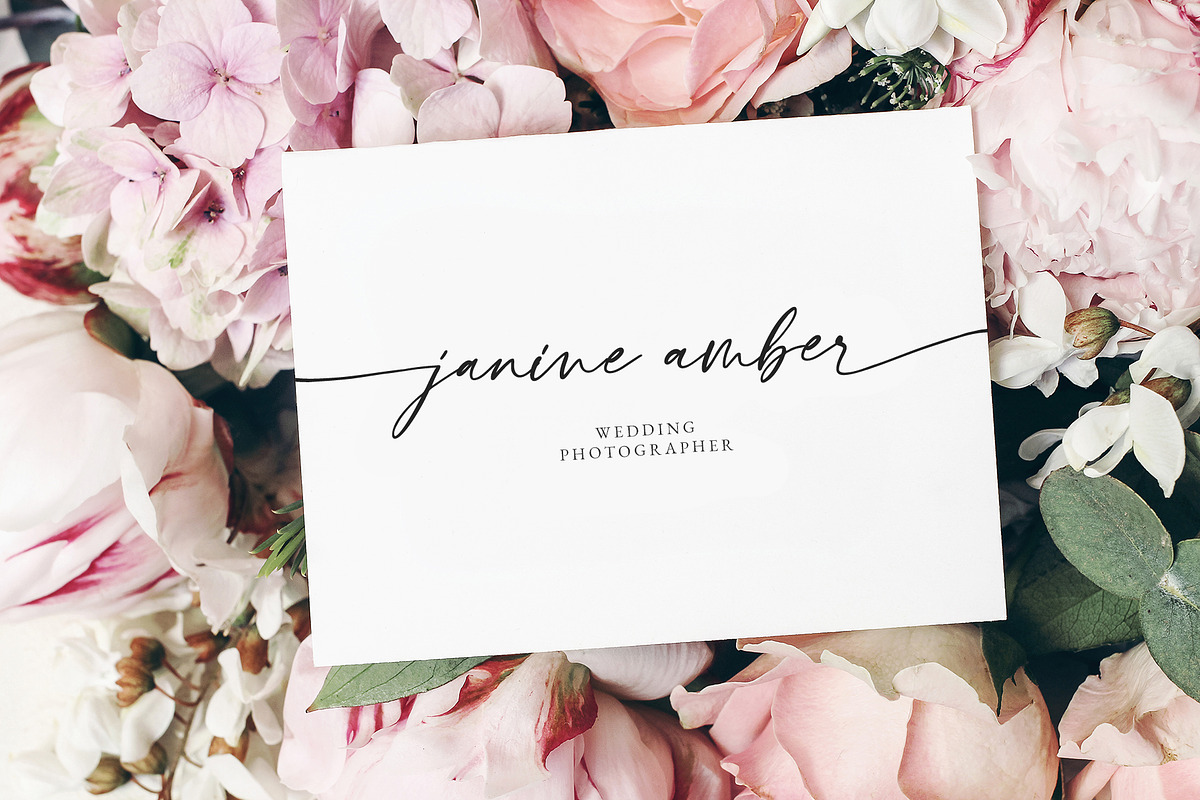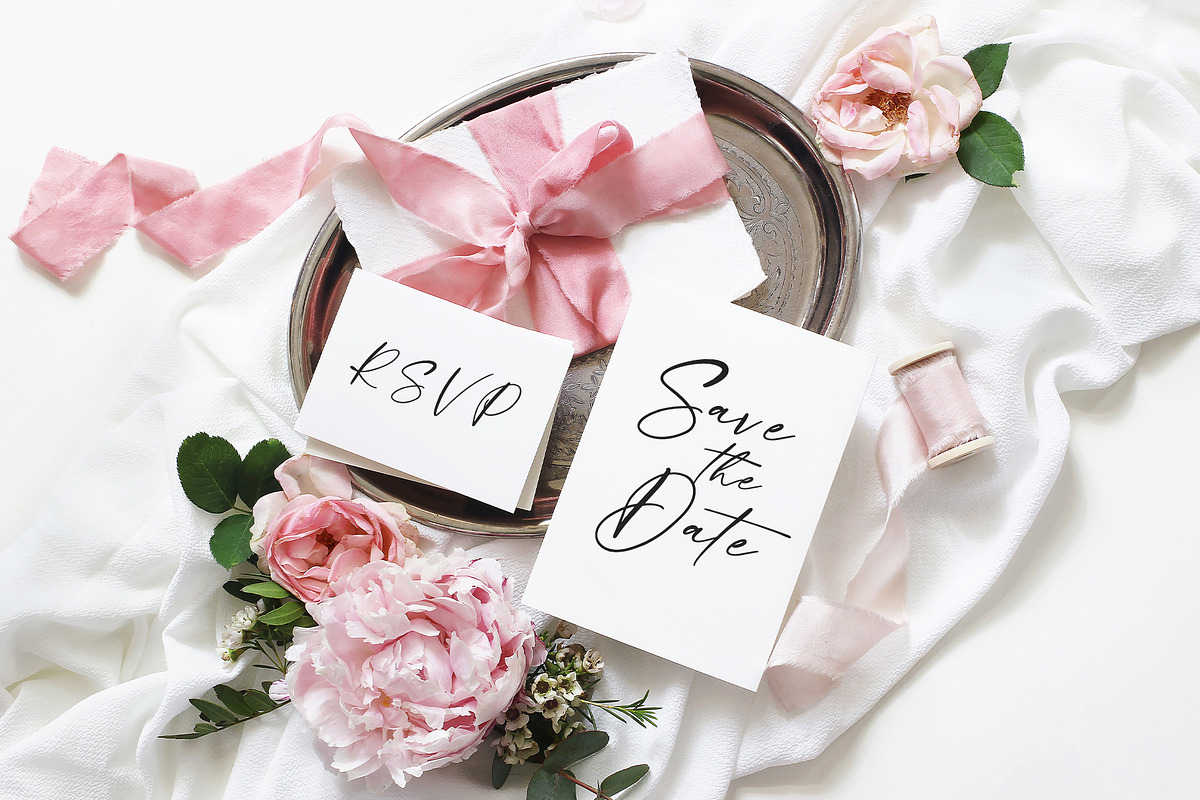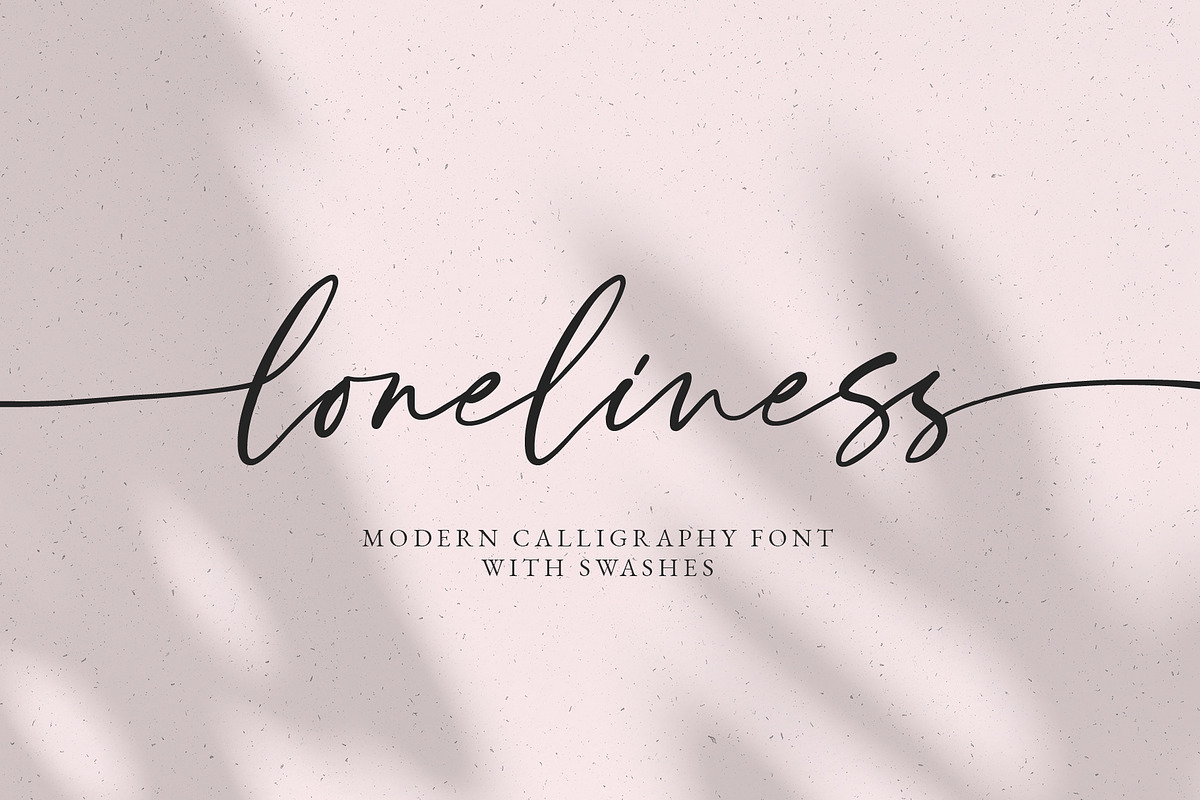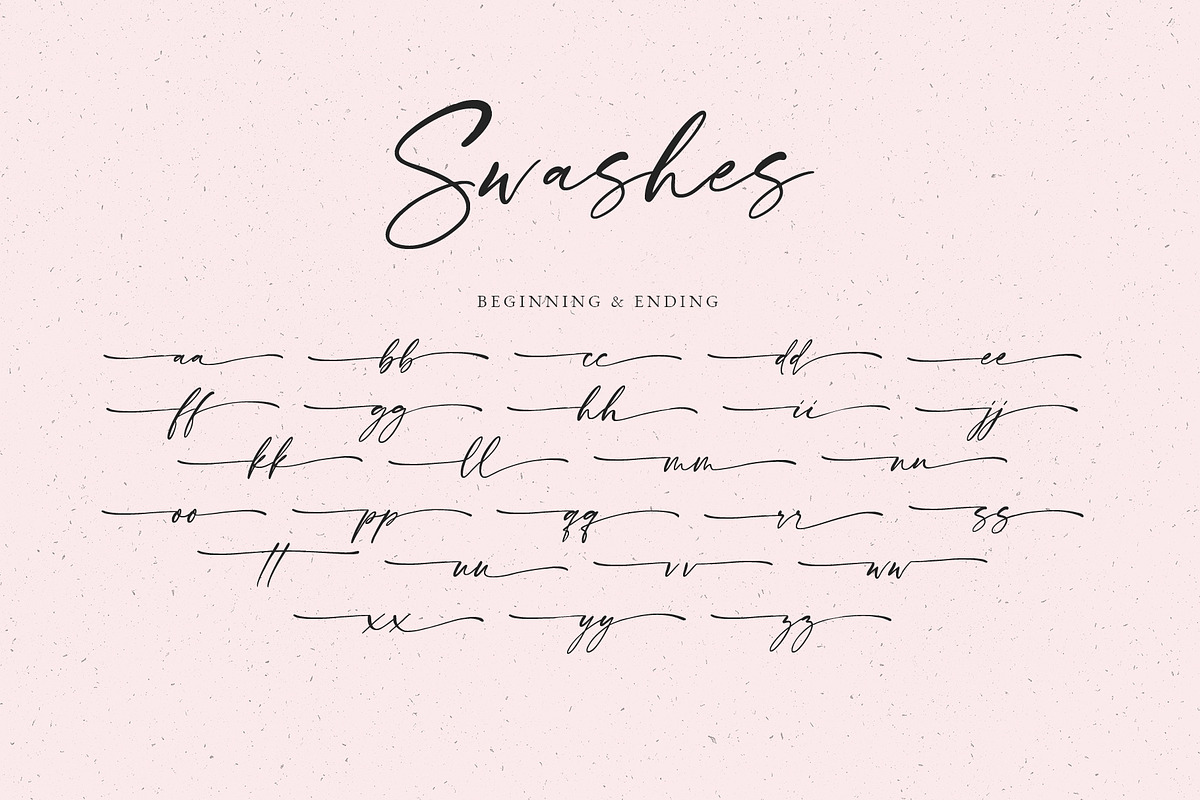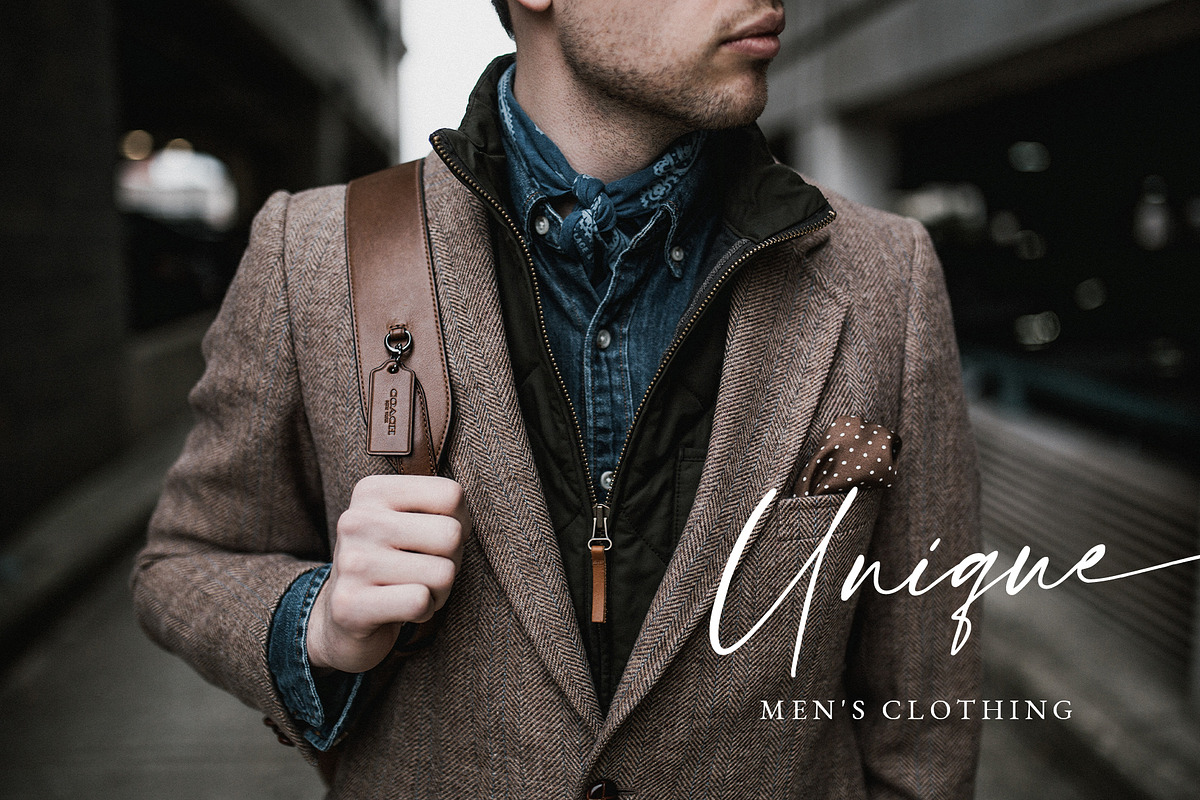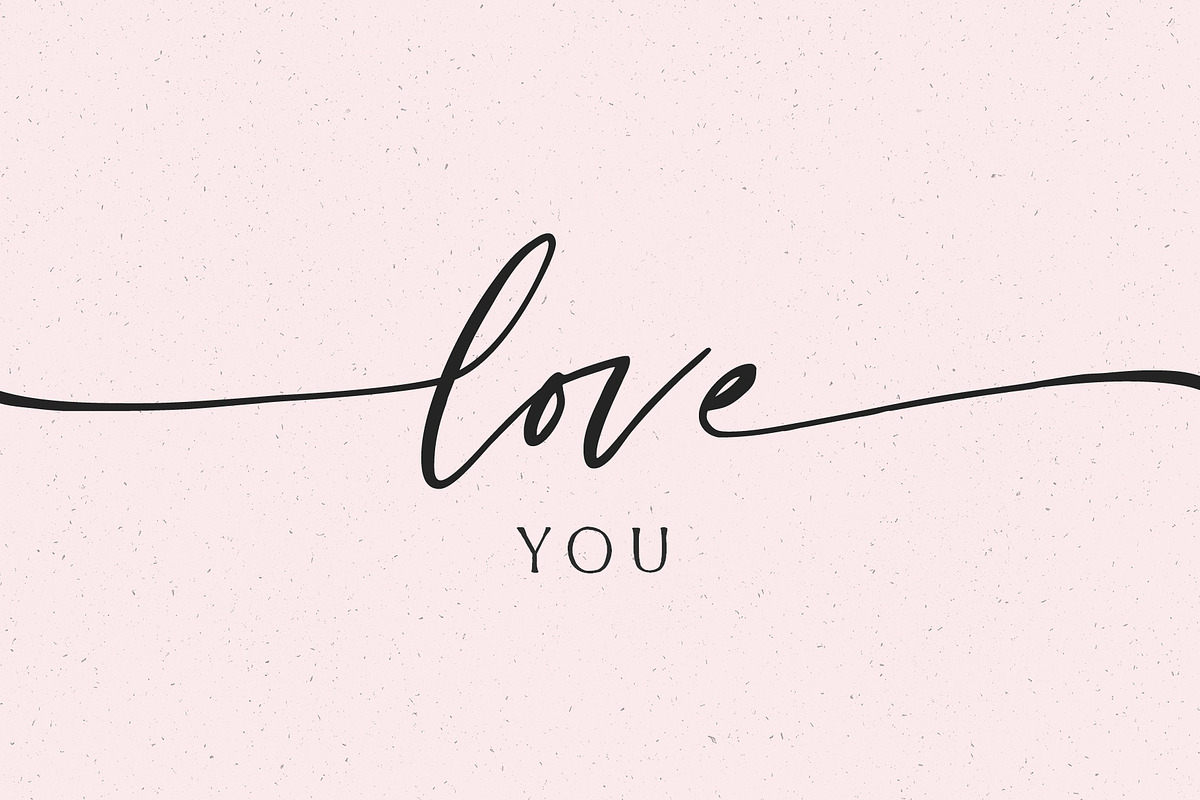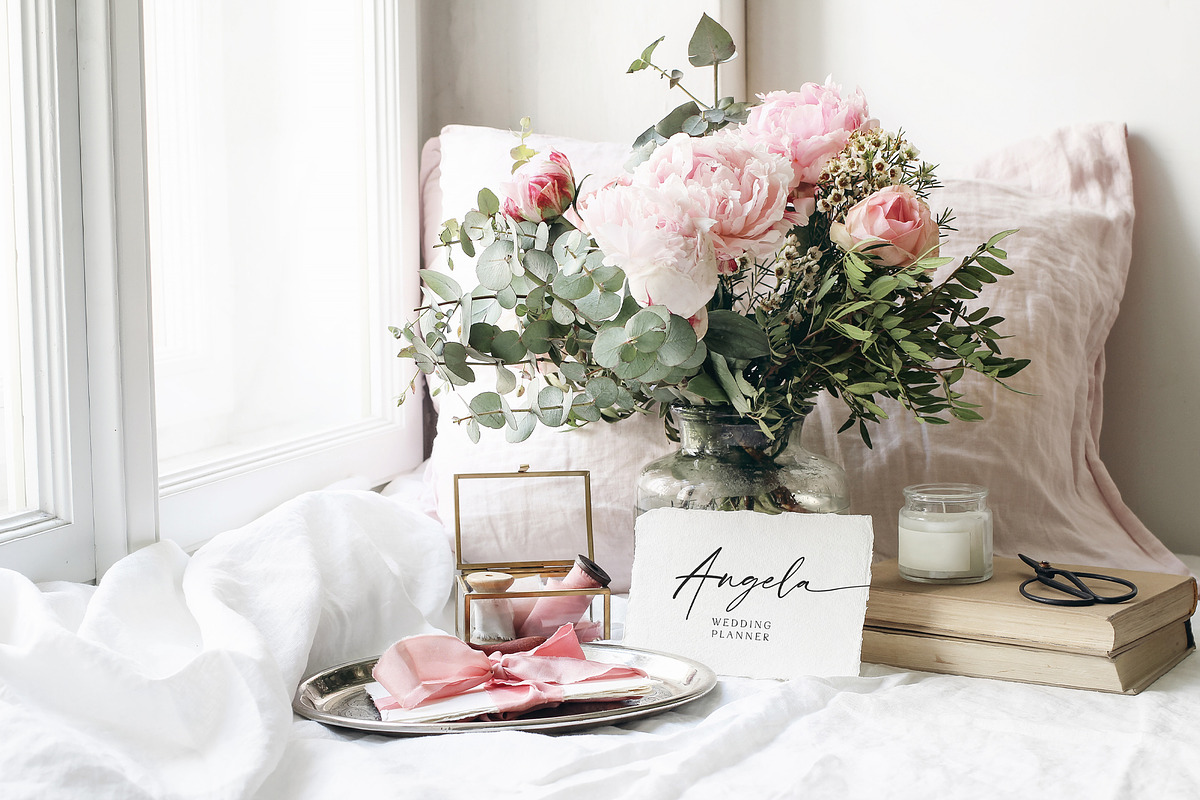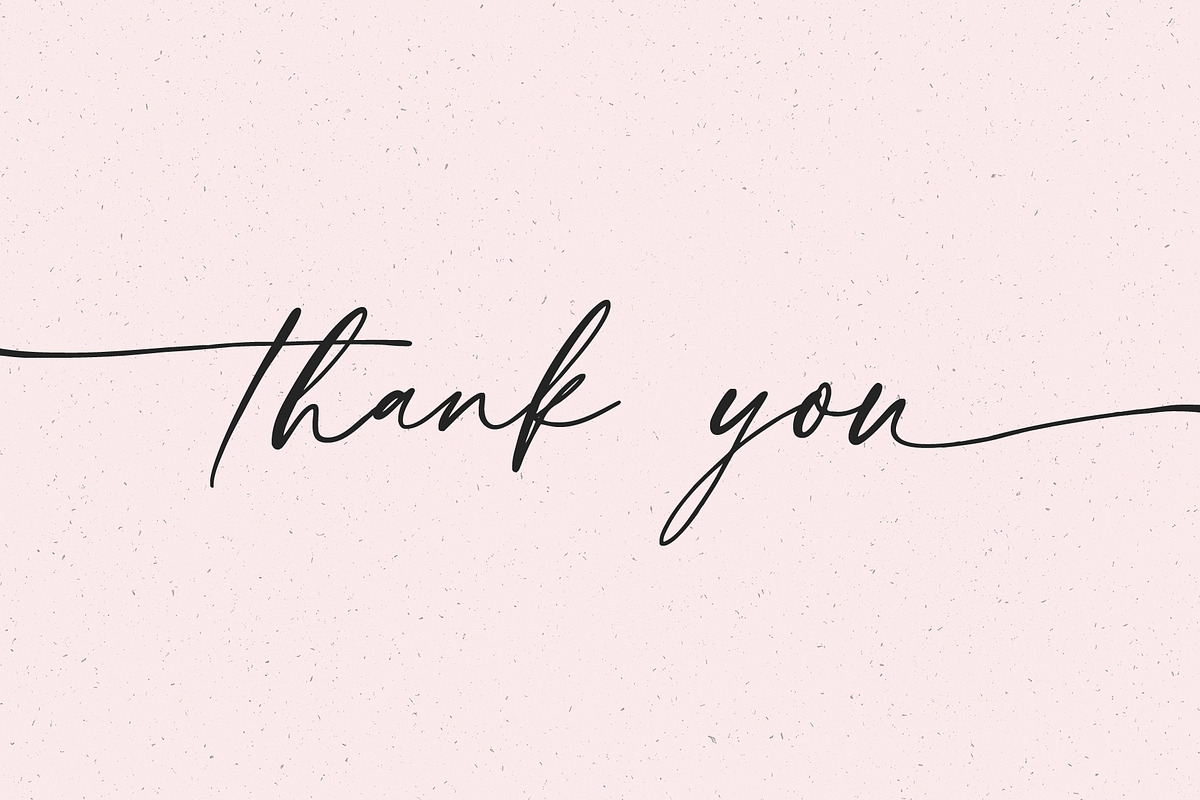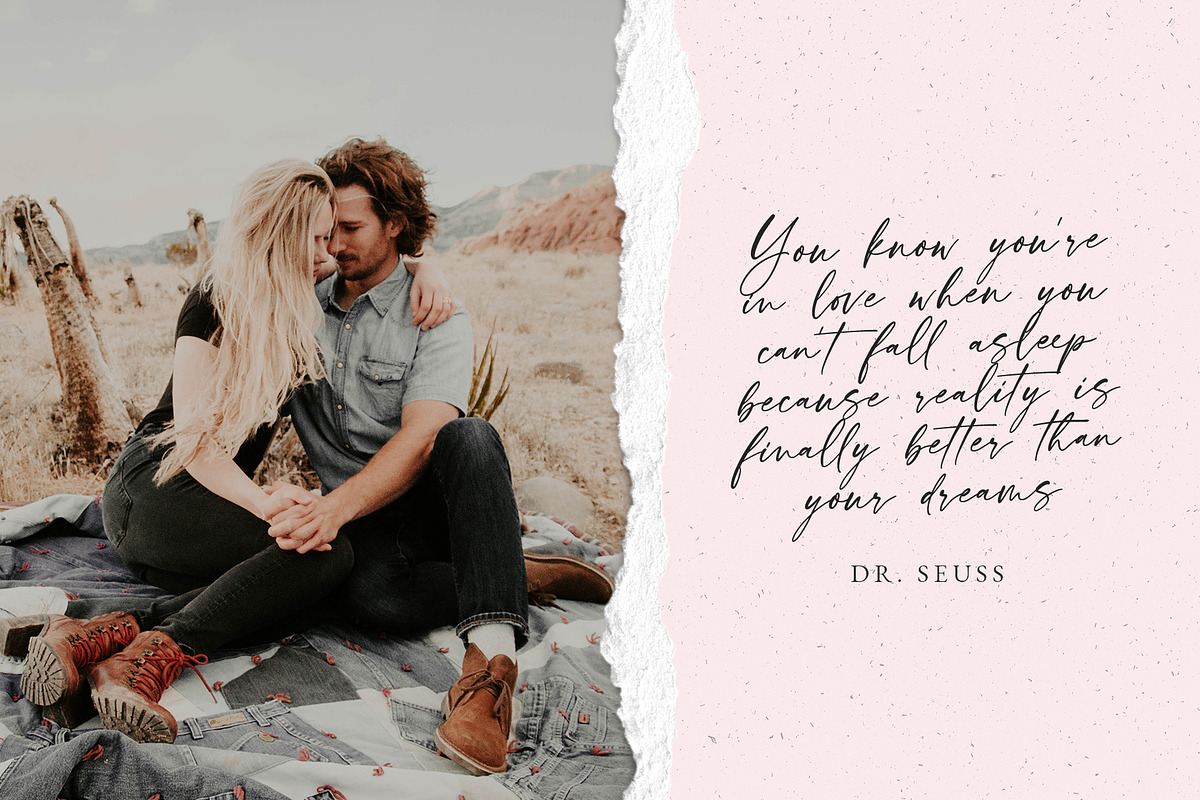
Loneliness Romantic Script
How it works? Write:
- -angela
- Jacob-
- -carolina-
- -jv-
This modern calligraphy script has been attentively written, with gentle curves to produce a font thats completely distinctive and original. It contains a full set of lower & uppercase letters, a large range of punctuation, numerals, and multilingual support. Perfect for adding a elegant and unique touch to your lettering projects and branding
Also with their help, you can create a Wedding lettering or beautiful frame for your home. Or just use for your small, book covers, stationery, marketing, magazines and more.
- Loneliness Regular
- Lowercases Swashes